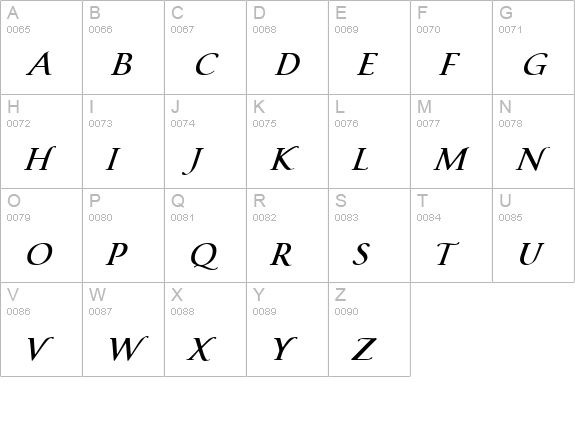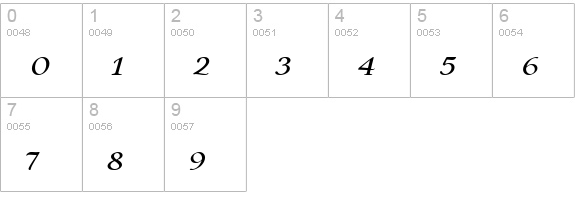
FlorensLP Font Details
FlorensLP is a beautifully crafted font that exudes elegance and sophistication. Its sleek and modern design makes it perfect for a wide range of projects, from branding to graphic design. The clean lines and subtle curves of FlorensLP give it a timeless appeal that is sure to make your text stand out. What makes FlorensLP even more appealing is that it is completely free to download. That's right, you can get your hands on this stunning font without spending a dime. Simply head over to FontsMarket.com and start using FlorensLP in your projects today. With its versatility and classic style, FlorensLP is a must-have font for any designer looking to add a touch of sophistication to their work. Download it for free now and elevate your designs to the next level.